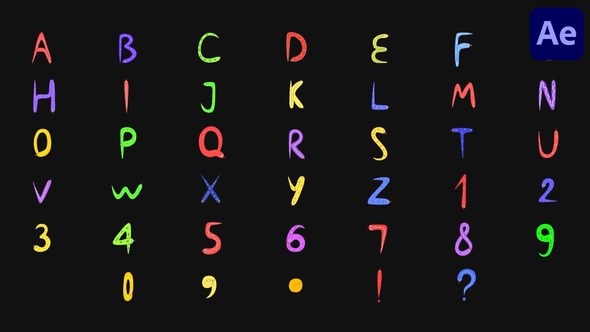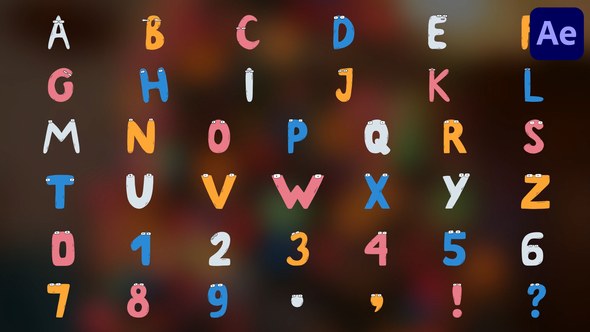
Videohive Comics Animated Alphabet Typeface for After Effects
Comics Animated Alphabet Typeface is an template featuring vibrant animated letters and numbers in a fun comic style. Each animation has color controller. This template is perfect for creating eye-catching titles, playful intros and more.
- Hand drawn letters and numbers
- Full color controls